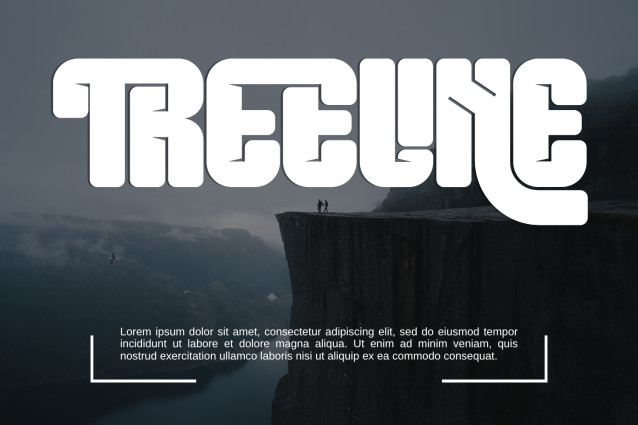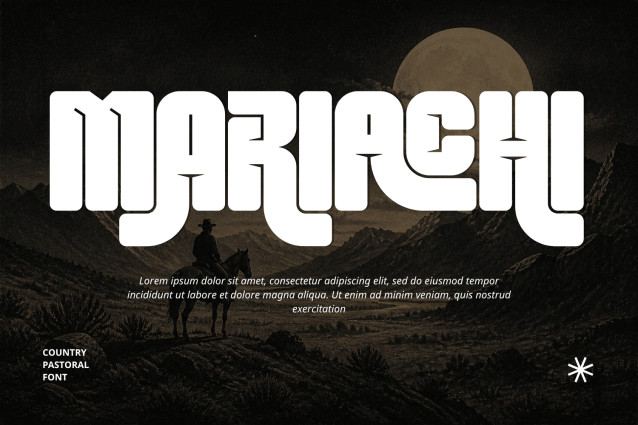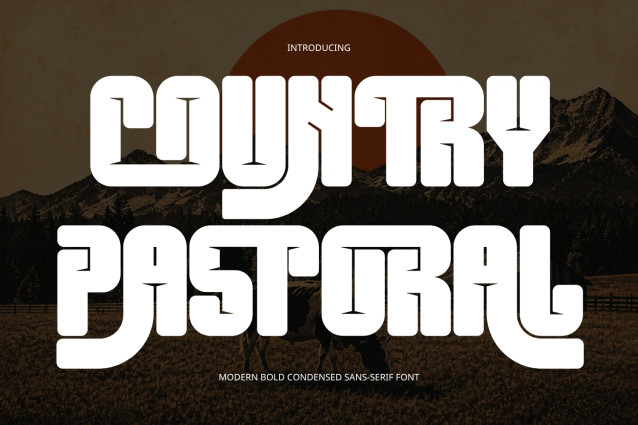
COUNTRY PASTORAL FONT – Modern Retro Western & Chunky Rustic Display Font is a bold, heavyweight display typeface crafted at the intersection of modern retro design, outdoor western heritage, and rustic vintage typography. Built with smooth rounded contours and distinctive inner triangular chisel notches, this font delivers a rugged yet friendly aesthetic that commands instant visual authority.
Engineered to give headlines and display graphics a solid, emblem-like presence, its heavy block proportions and cohesive sweeping stems transform simple text into striking logotypes effortlessly. Whether you are creating outdoor adventure brandings, craft beverage packaging, country festival posters, vintage apparel graphics, or rustic signage, COUNTRY PASTORAL provides the perfect balance of nostalgic warmth, craftsman spirit, and high-impact visual weight.